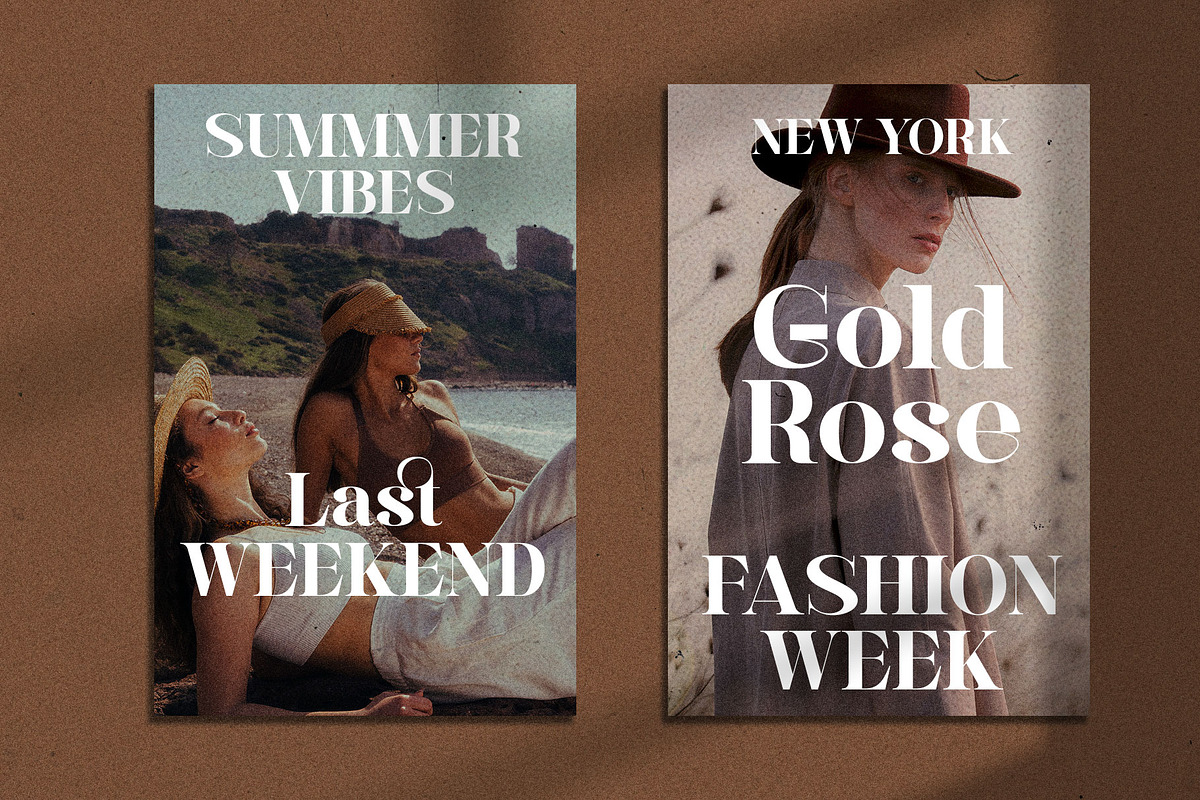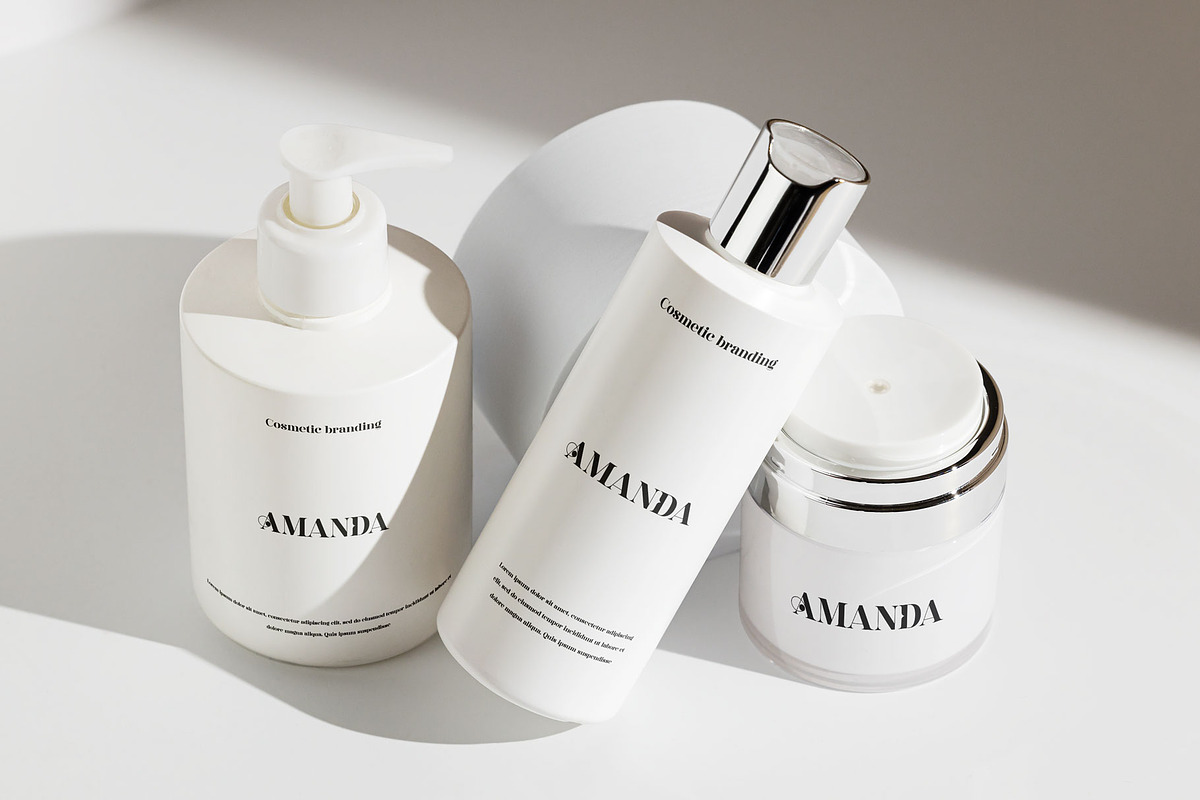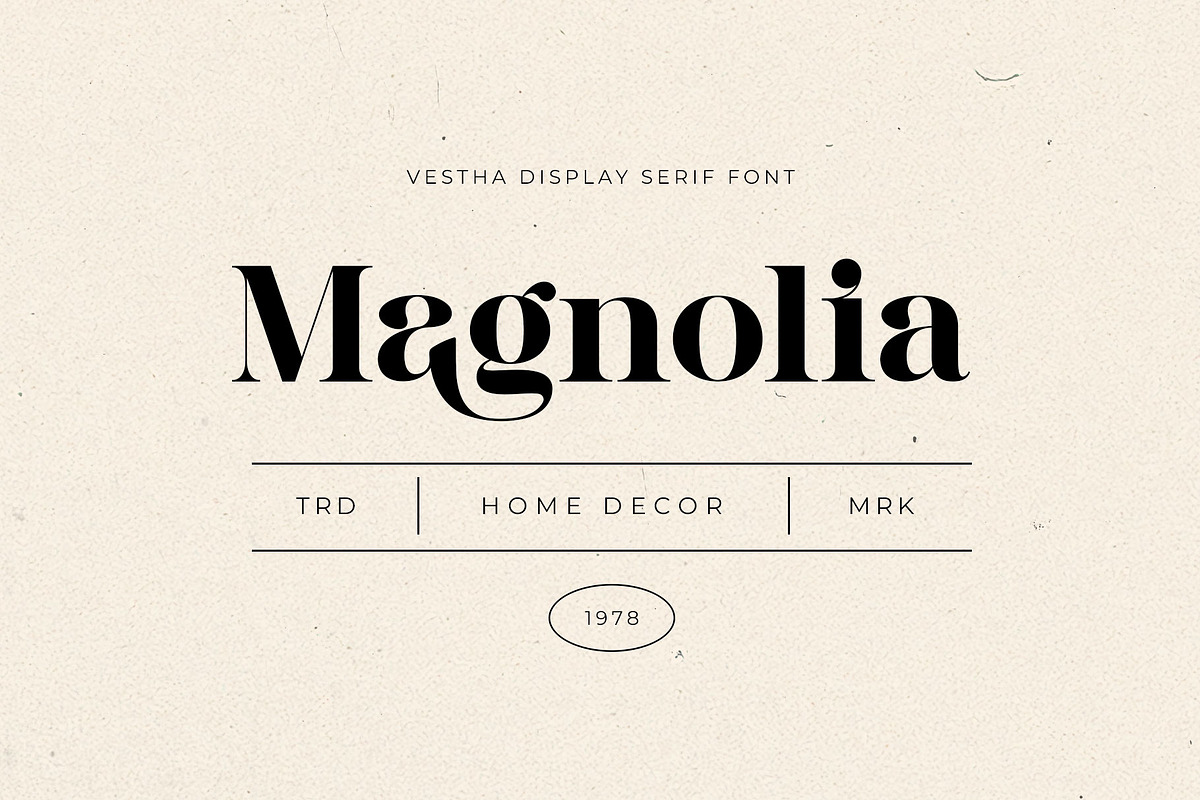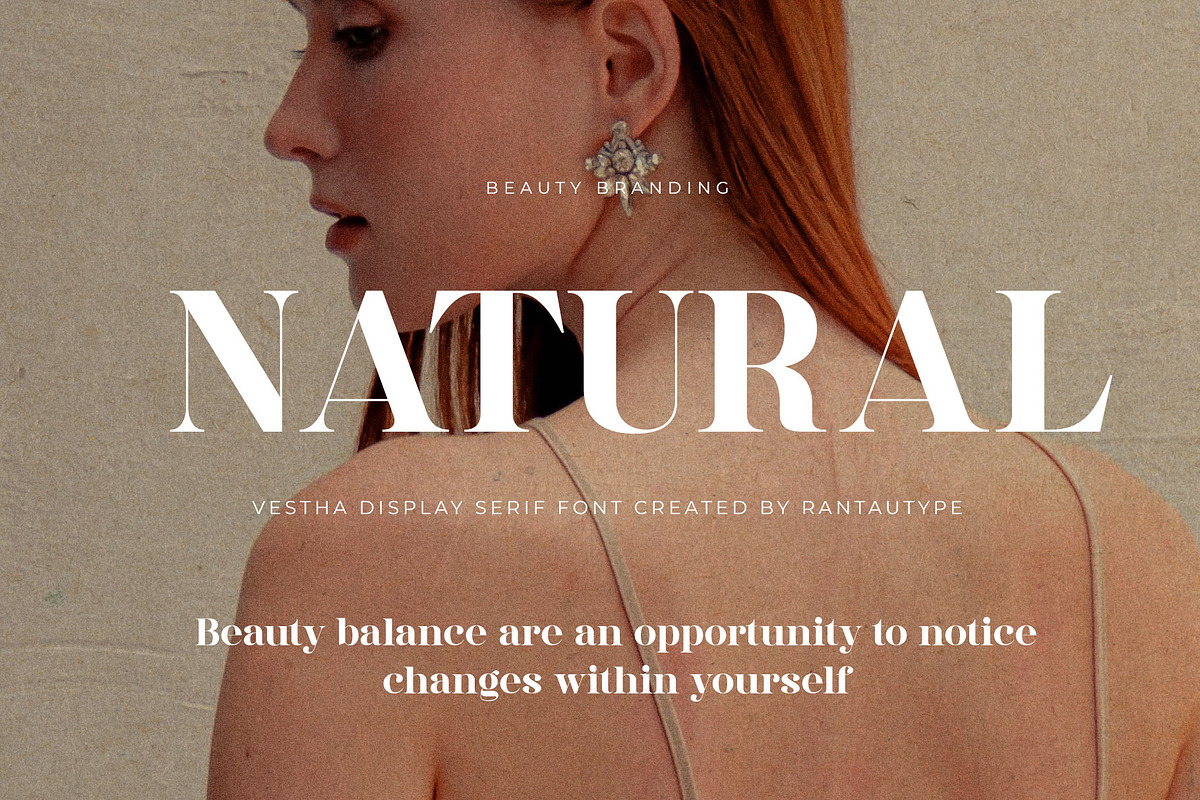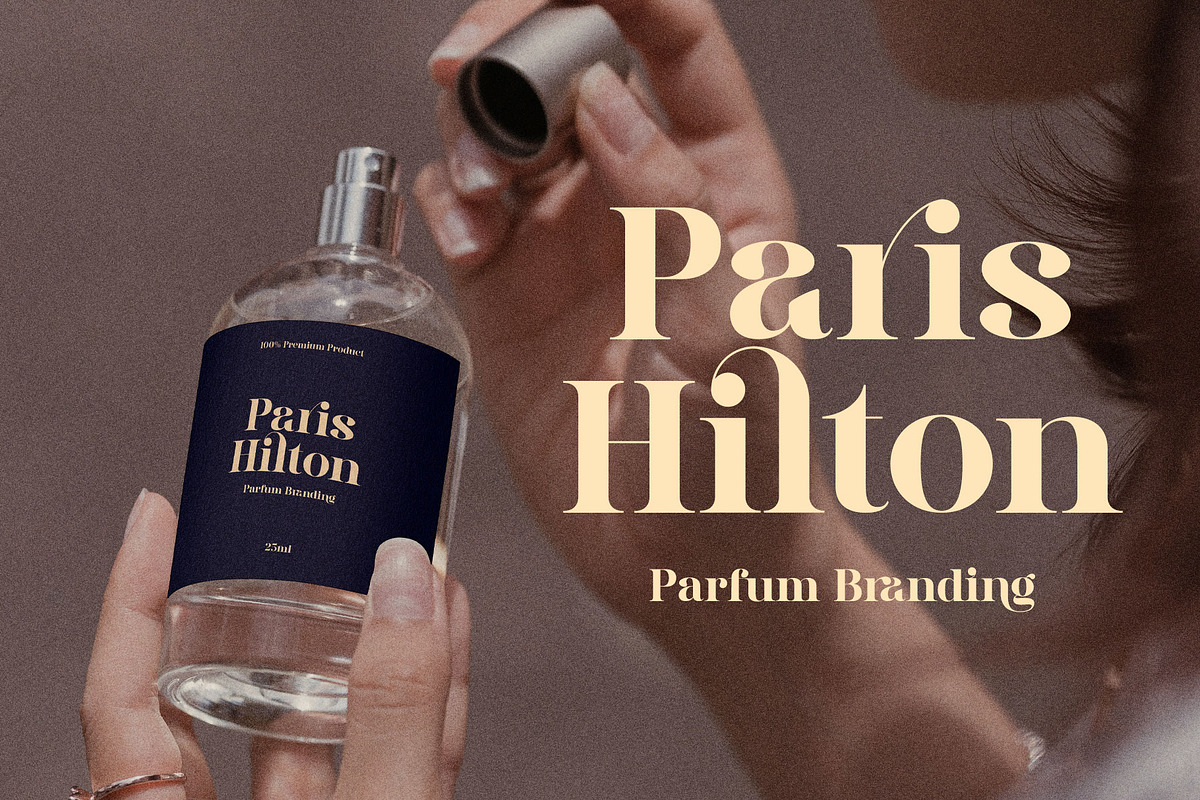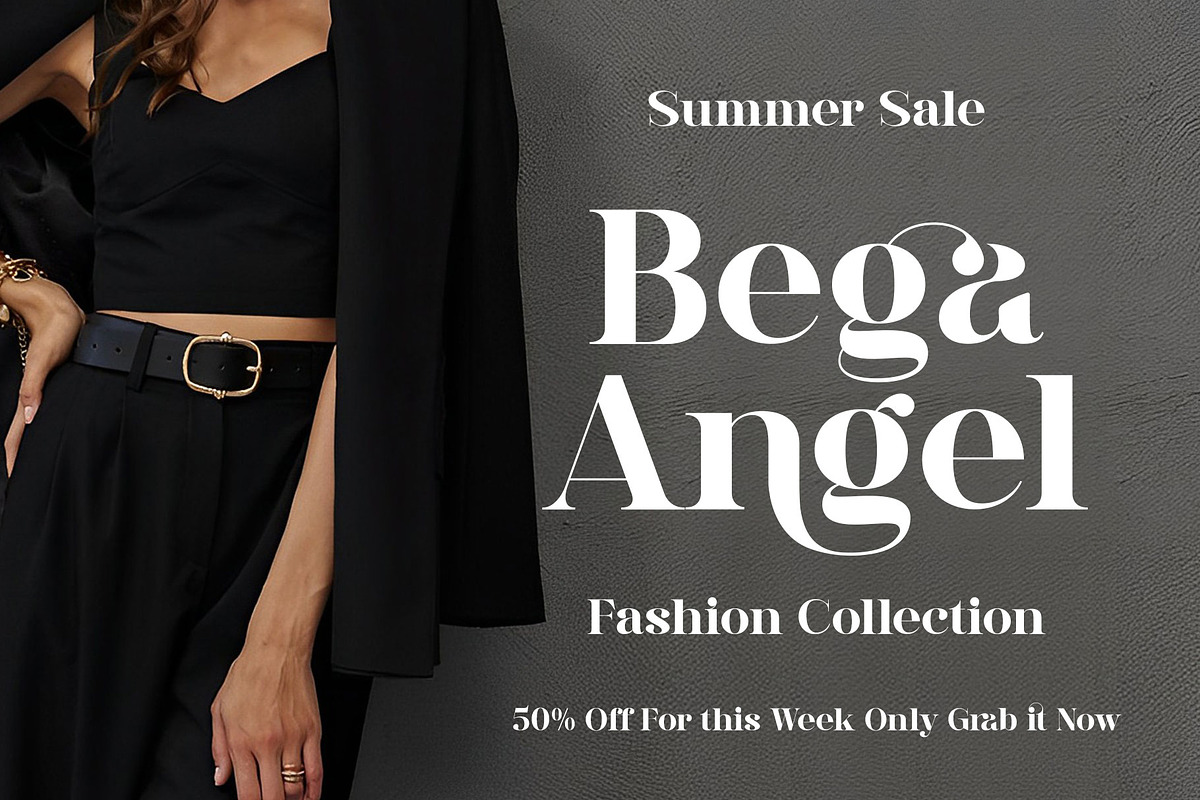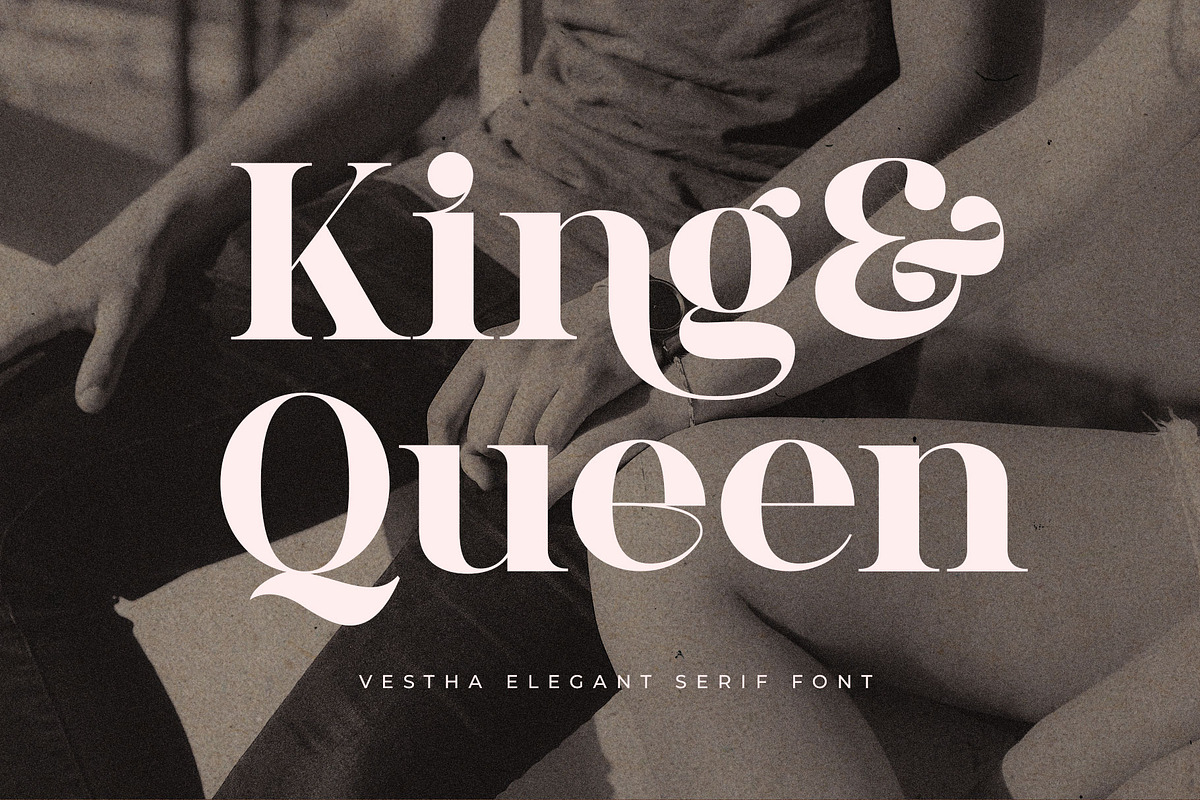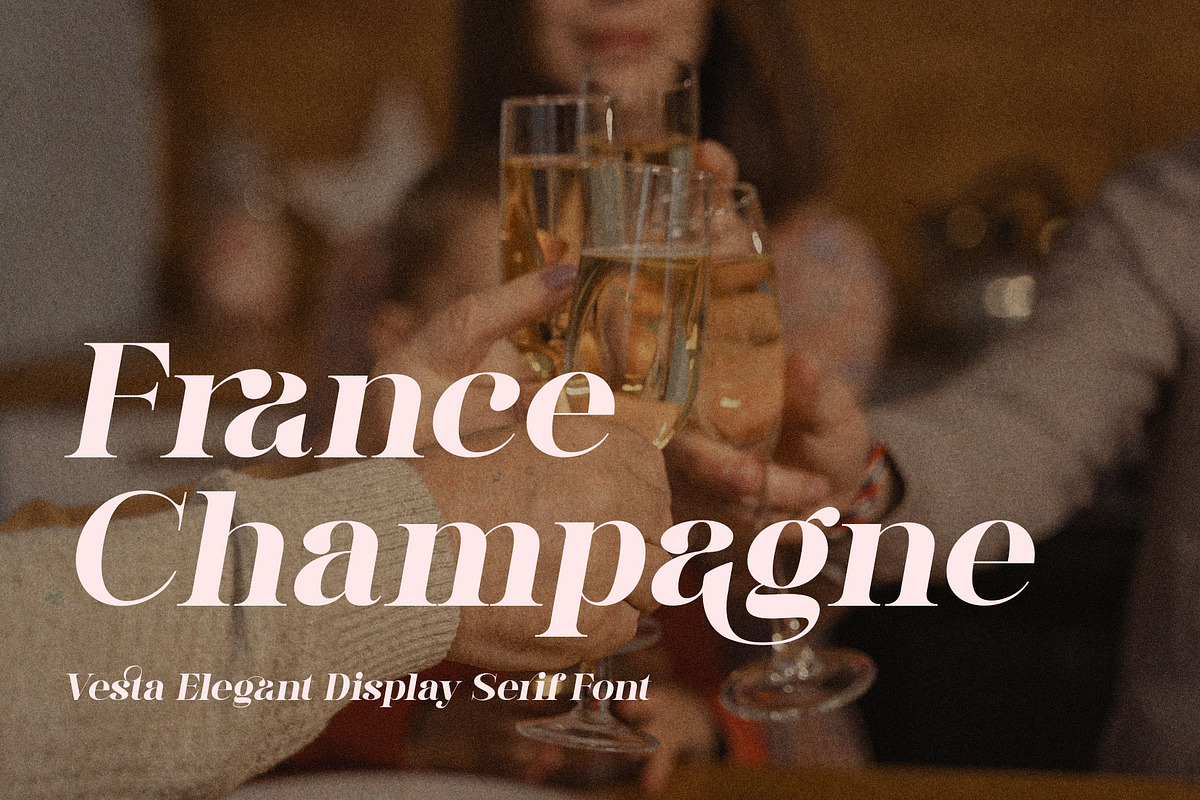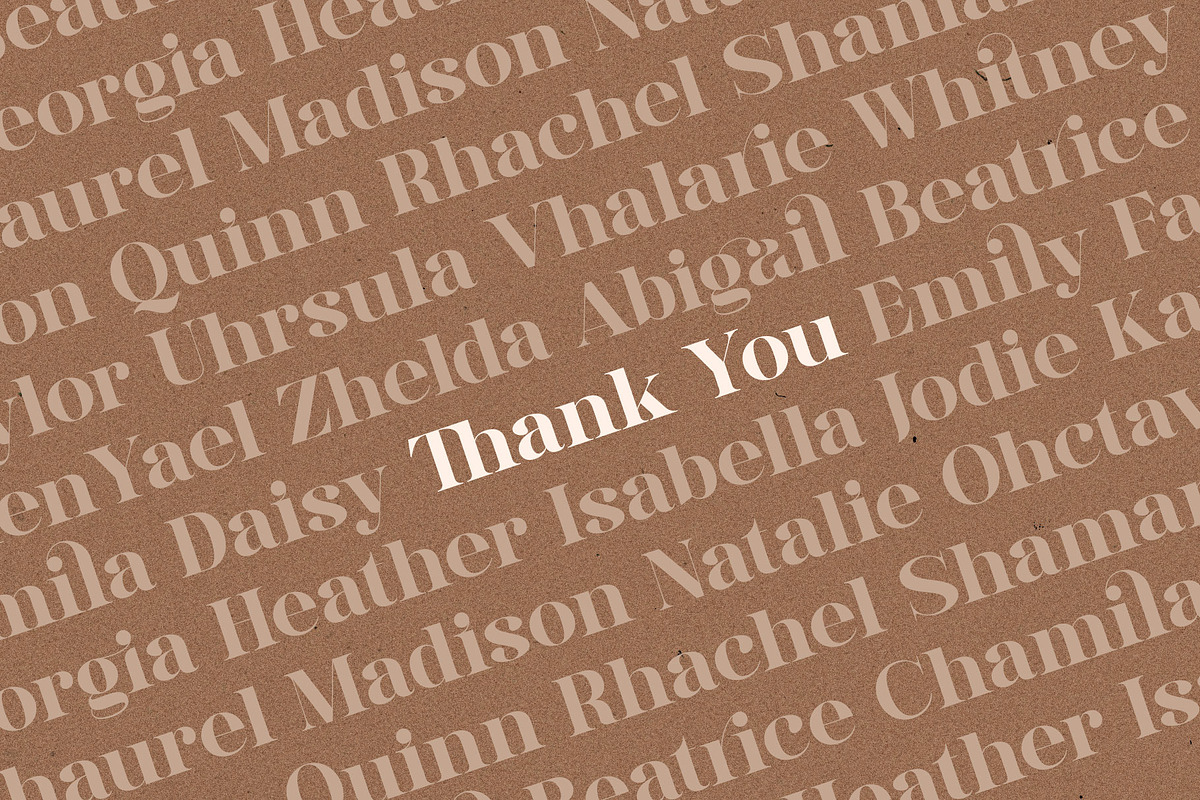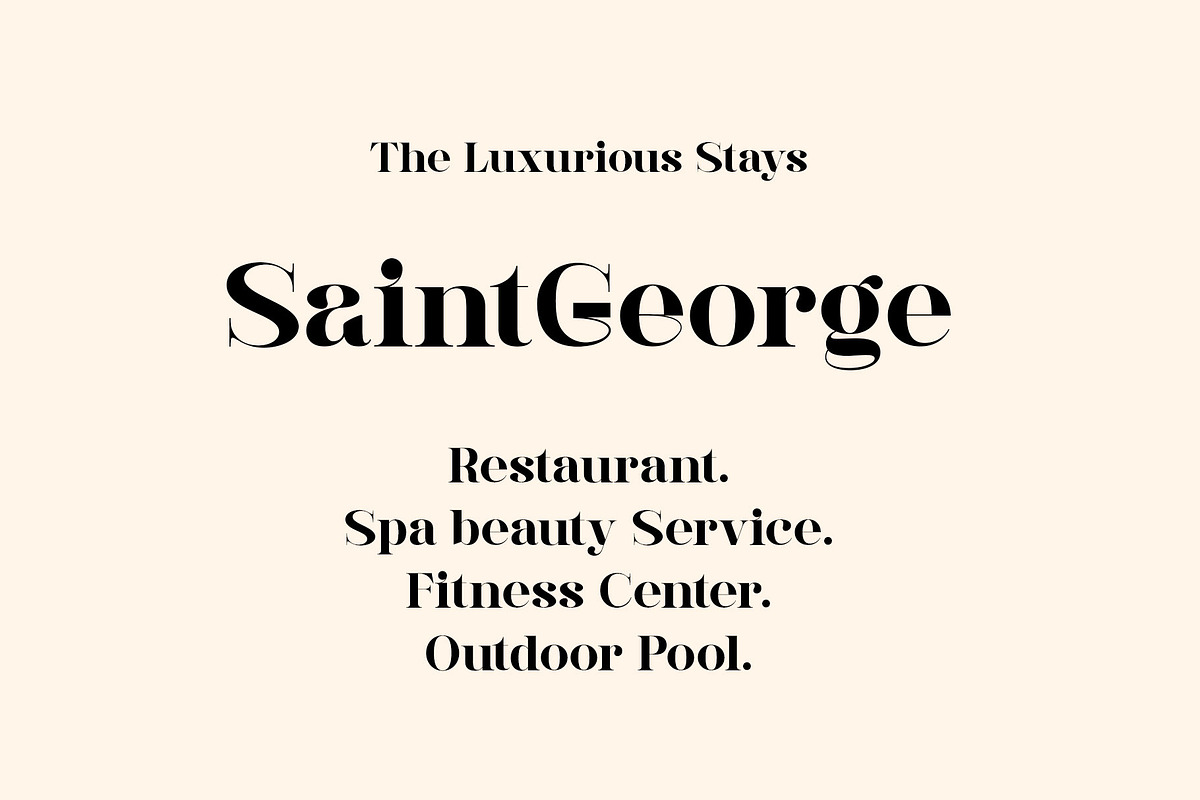
Vestha - Elegant Serif Font
Vestha is elegant serif font with unique shape. Many professional brands that need an elegant logo, that's why I made this font. Opsi is perfect for BRANDING and LOGO DESIGN . You will get classy, elegant, and certainly unique logos with this font. Vestha here to make your brand to high level!!!
Standar letter A-Z and a-z Numberial and Functional Alternate ligature Multilinggual support